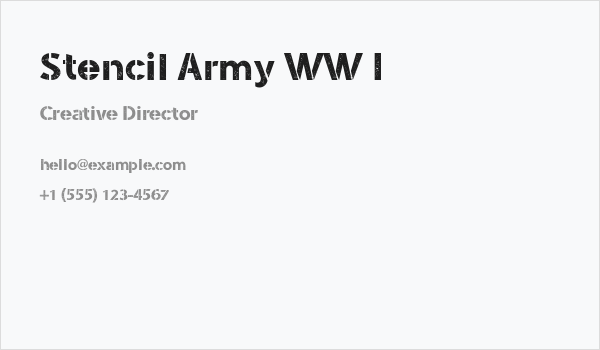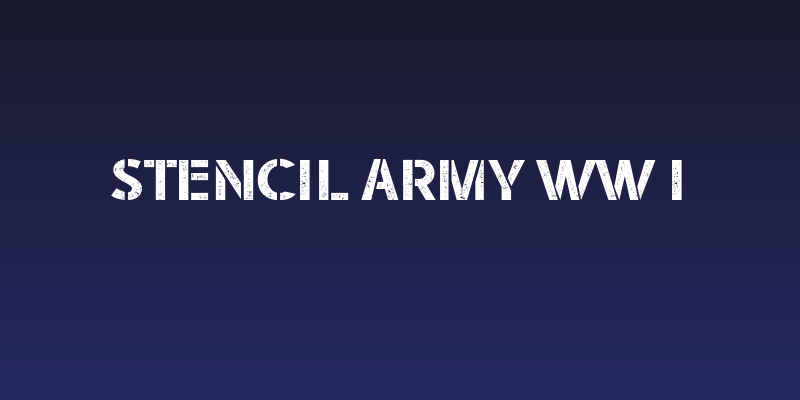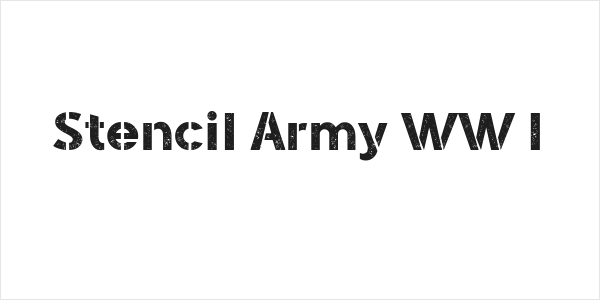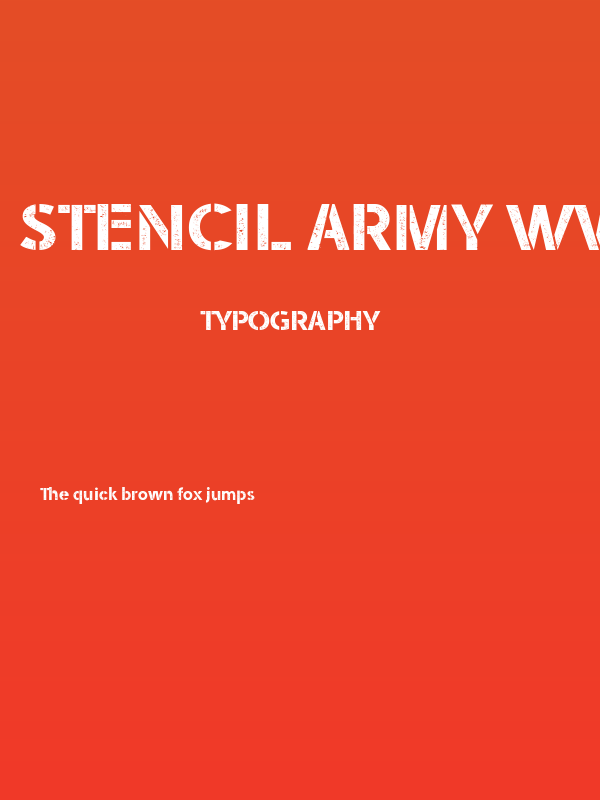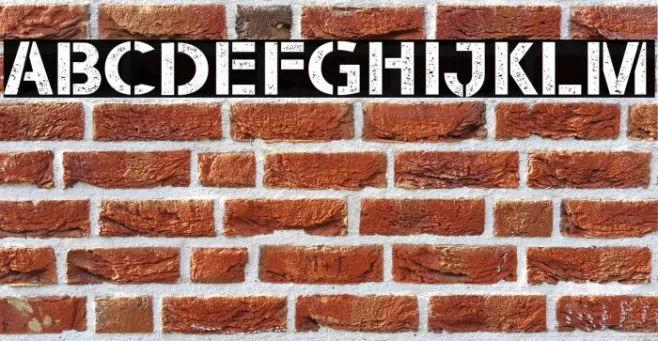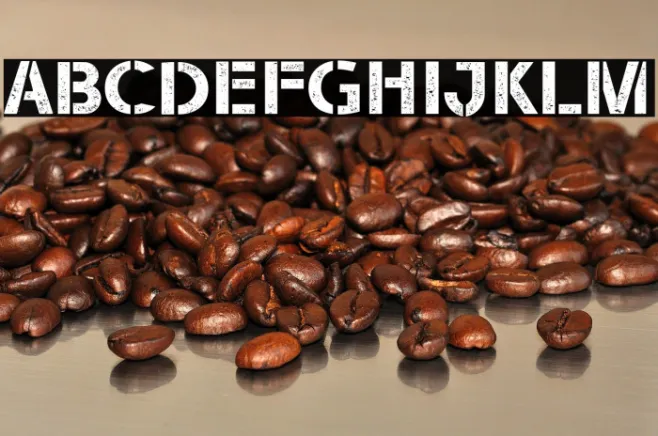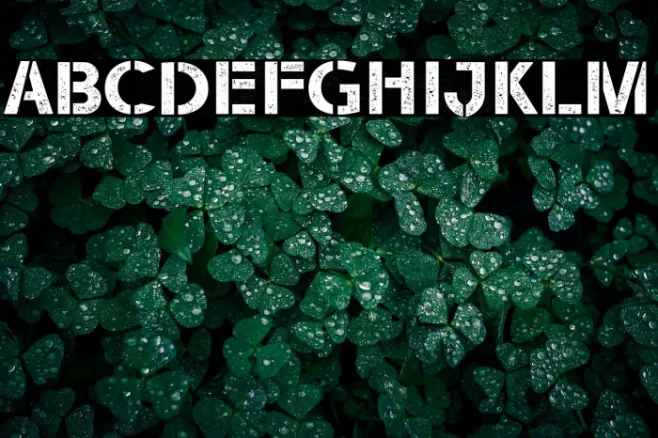
Stencil Army WW I Font
Stencil Army WW I Description
This font features a bold, military-inspired stencil design that evokes a rugged, utilitarian aesthetic. The letters are characterized by their blocky, geometric shapes with distinct breaks that mimic the look of traditional stenciling. The texture adds a distressed, vintage feel, enhancing its authenticity and appeal for projects that require a strong, authoritative presence. The uppercase and lowercase letters maintain a consistent style, while the numerals and special characters complement the overall theme. This font is ideal for designs that aim to convey strength, resilience, and a sense of history.
| Proposed Projects | Ideal for military-themed posters, vintage apparel designs, branding for outdoor equipment, and signage that requires a strong, authoritative look. |